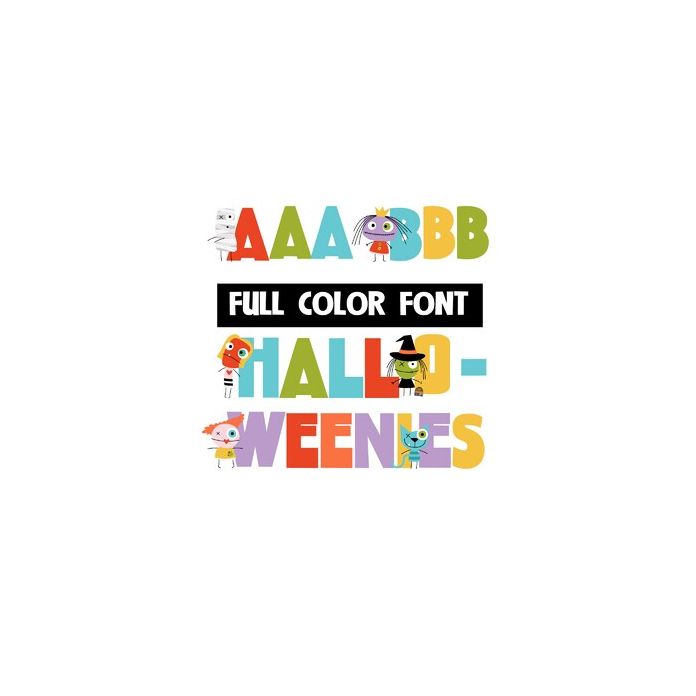
This full-color font features Halloween stick figures. These cute figure adorn the uppercase only. The lowercase is without and there is a secondary lowercase for color options available through your system or Silhouette's glyph map.